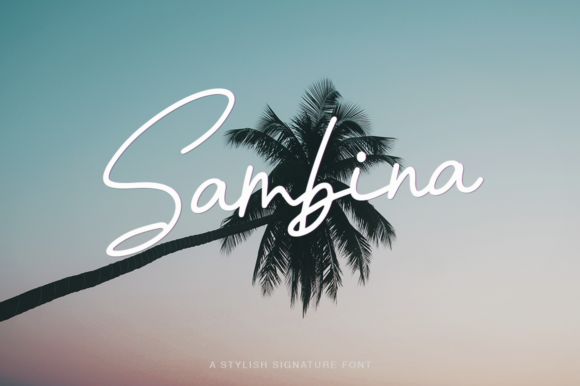
Step into a world of elegance and charm with Sambina Font, an extraordinary creation from the skilled hands of Pasha Larin. This script font exudes a captivating beauty that will leave an unforgettable impression on your designs. Its delicate strokes and swashes evoke a sense of timeless sophistication, making it perfect for projects yearning for a touch of grace.
Unleash your creativity and let Sambina Font guide you through a symphony of design possibilities. Embark on a journey where your branding projects and decorative endeavors transcend the ordinary and embrace the extraordinary. Whether you're crafting wedding invitations, fashioning logos, or adorning social media posts, Sambina Font will elevate your creations to new heights of artistry.
Indulge in the versatility of Sambina Font, a font that effortlessly adapts to a myriad of styles and themes. Its captivating essence harmonizes seamlessly with modern aesthetics, vintage charm, and everything in between. Create designs that speak to your soul, expressing your unique vision with unparalleled elegance.
As you immerse yourself in the world of Sambina Font, discover the endless possibilities it holds. Let your imagination soar and witness the transformation of your designs into captivating masterpieces. Embrace the power of typography and elevate your creations to new levels of brilliance.
With Sambina Font at your fingertips, embrace the opportunity to leave a lasting impression on your audience. Allow your designs to captivate hearts and minds, evoking emotions that resonate and create connections. Experience the joy of creating designs that reflect your passion and leave an unforgettable mark on the world.